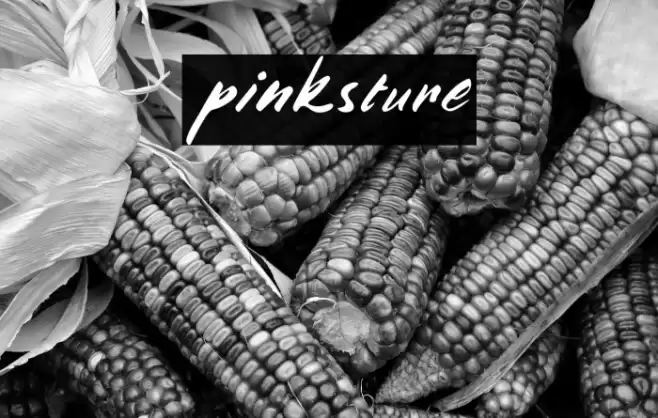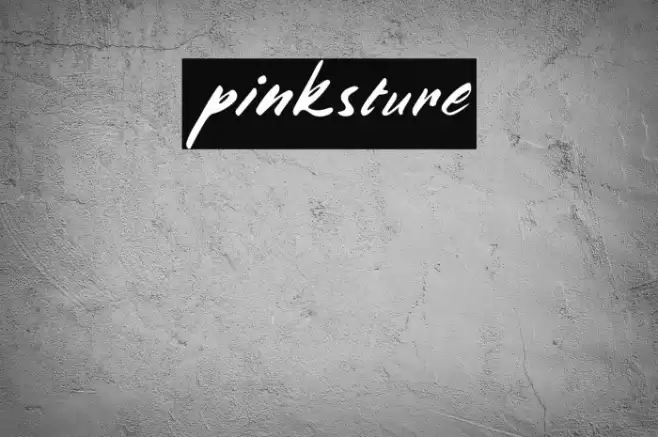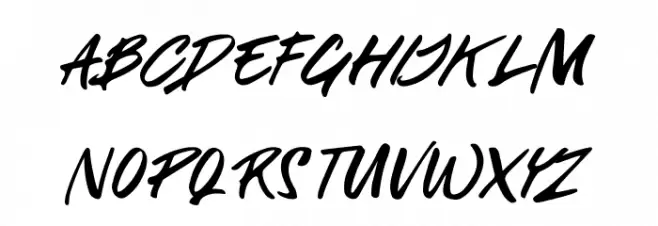
pinksture Font
pinksture Description
This font features a dynamic and expressive script style, characterized by fluid, sweeping strokes that convey a sense of movement and elegance. The uppercase letters are bold and slightly slanted, giving them a dramatic flair, while the lowercase letters maintain a consistent flow, enhancing readability. The overall appearance is both artistic and modern, making it suitable for creative projects. The font's design includes a mix of thick and thin strokes, adding to its visual interest and making it stand out in various applications.
A dynamic, expressive script font with fluid, sweeping strokes from Regular fonts.
- Proposed Projects: Ideal for branding, invitations, greeting cards, and artistic projects.
- Use Case: Logos, Headlines, Artistic projects